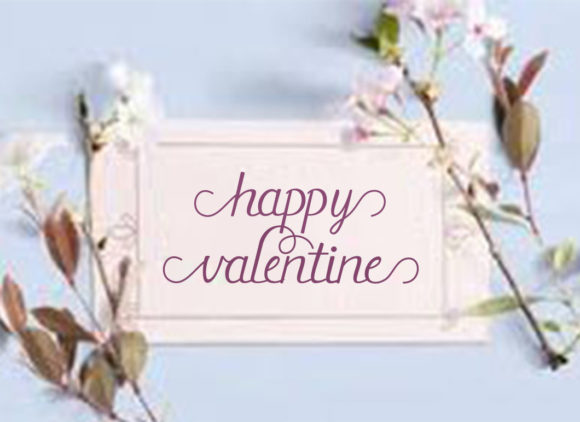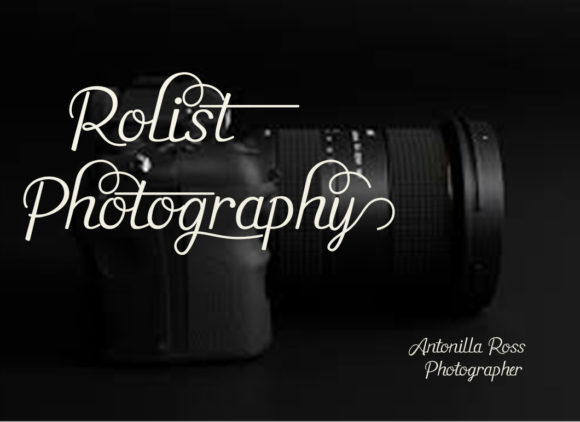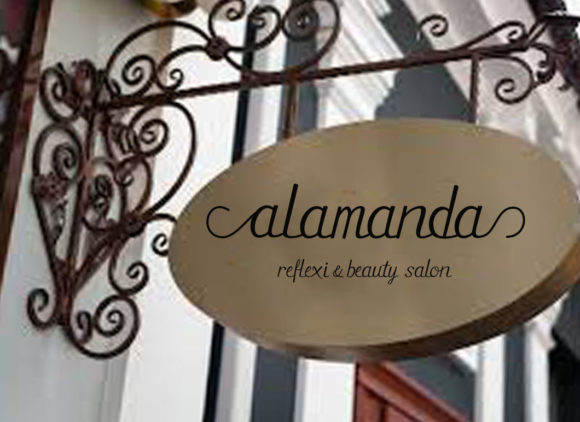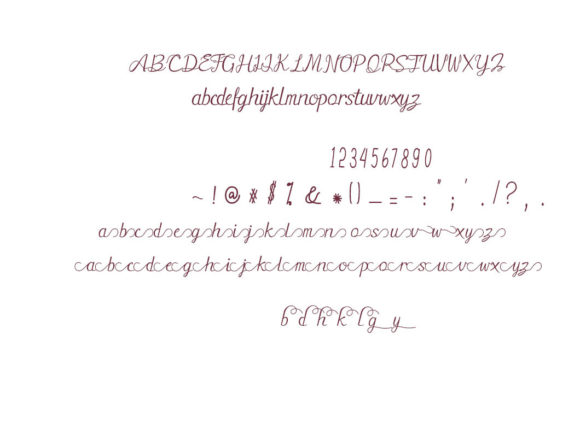
Introducing Atlantic Font: Elevate Your Designs with Elegance and Class
Are you looking for a font that can add a touch of sophistication and refinement to your designs? Look no further than Atlantic Font, a lovely and delicate script font that exudes elegance and class. Crafted with precision and attention to detail, Atlantic is the perfect choice for designers and crafters who want to create stunning visual content that stands out from the crowd.
The Characteristics of Atlantic Font
Atlantic Font is a beautifully designed script font that boasts a range of characteristics that make it ideal for a variety of design projects. Here are some of its key features:
- Elegant and Delicate: Atlantic Font features a delicate and elegant design that is perfect for creating sophisticated and refined visual content.
- PUA Encoded: Atlantic is PUA (Private Use Area) encoded, which means that you can access all of the glyphs and swashes with ease. This makes it simple to customize your designs and add your own personal touch.
- Refreshing Look: Atlantic Font is designed to provide a refreshing look to your designs, making it perfect for projects that require a unique and eye-catching aesthetic.
Why Choose Atlantic Font?
So, why should you choose Atlantic Font for your design projects? Here are just a few reasons:
- Versatility: Atlantic Font is a versatile font that can be used for a wide range of design projects, from wedding invitations and branding materials to social media graphics and more.
- Unique and Eye-Catching: Atlantic Font is a unique and eye-catching font that will help your designs stand out from the crowd. Its elegant and delicate design makes it perfect for creating sophisticated and refined visual content.
How to Use Atlantic Font in Your Designs
Using Atlantic Font in your designs is simple. Here are a few tips to get you started:
- Pair it with Other Fonts: Atlantic Font pairs well with other fonts, so feel free to experiment with different combinations to find the perfect look for your design.
- Use it for Headings and Titles: Atlantic Font is perfect for headings and titles, where its elegant and delicate design can really shine.
- Experiment with Swashes and Glyphs: The PUA encoding of Atlantic Font makes it easy to access a range of swashes and glyphs. Experiment with these to add a personal touch to your designs.
Who is Atlantic Font for?
Atlantic Font is perfect for a range of designers and crafters, including:
- Graphic Designers: Atlantic Font is a great choice for graphic designers who need a elegant and delicate font for their designs.
- Wedding Designers: Atlantic Font is perfect for wedding designers who want to create beautiful and sophisticated wedding invitations and stationery.
- Crafters: Atlantic Font is also great for crafters who want to add a personal touch to their DIY projects, such as handmade cards and gift tags.
Atlantic Font is a stunning script font that exudes elegance and class. Its delicate design and PUA encoding make it perfect for a wide range of design projects, from wedding invitations and branding materials to social media graphics and more. Whether you’re a graphic designer, wedding designer, or crafter, Atlantic Font is a great choice for anyone who wants to create sophisticated and refined visual content. So why not give it a try and see how it can elevate your designs?